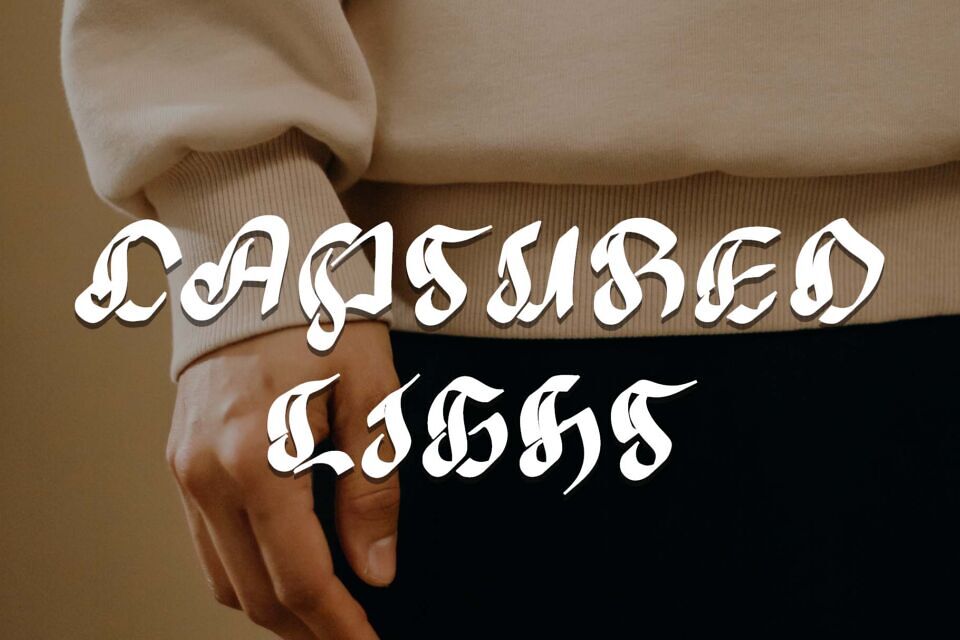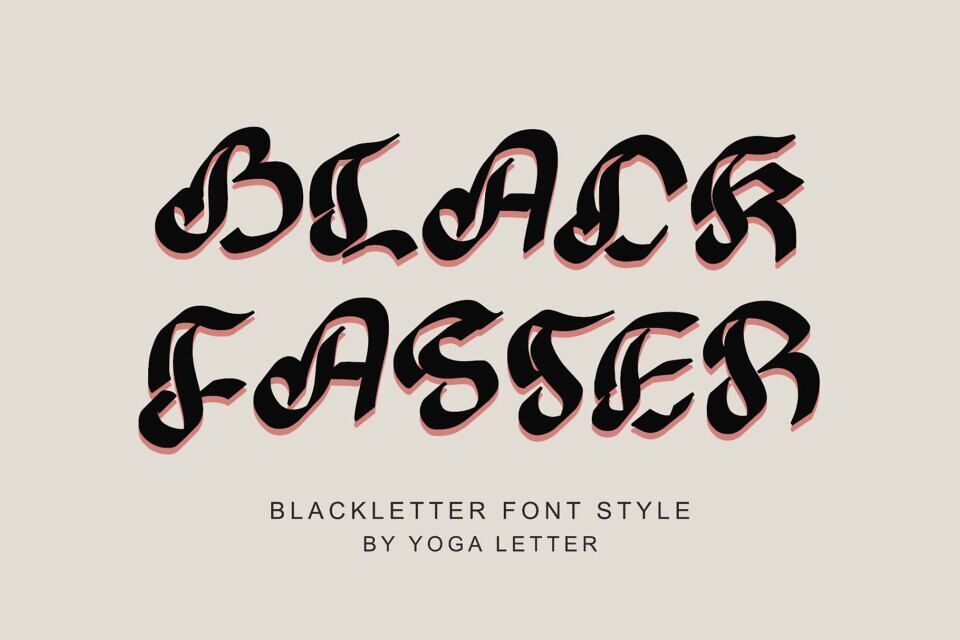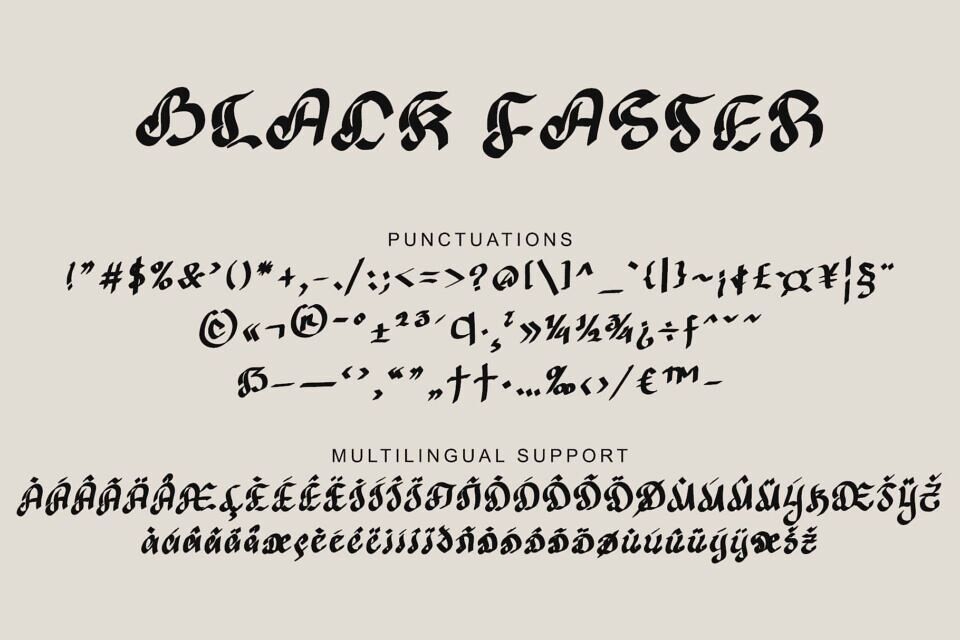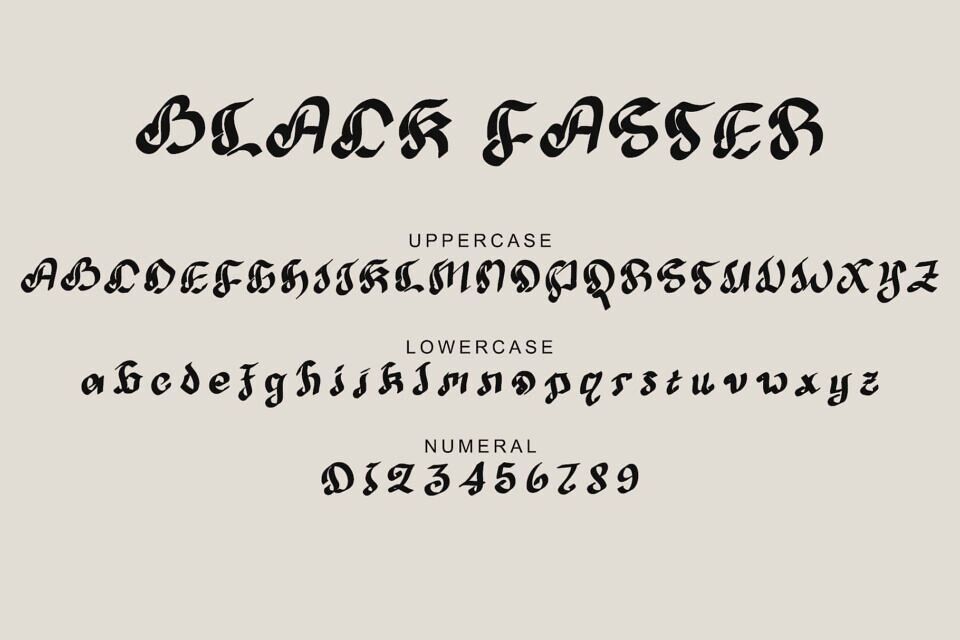
“Black Faster” is a unique and elegant blackletter font. This font is equipped with uppercase, lowercase, numeral, punctuations and multilingual support. Very suitable for banners, posters, prints, tattoos, branding, summer, spring, mother’s day, st patrick’s day, easter and others.